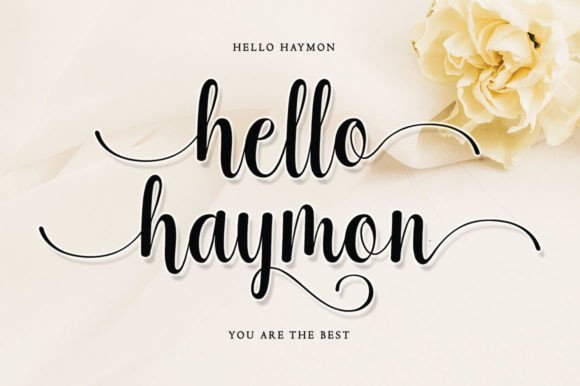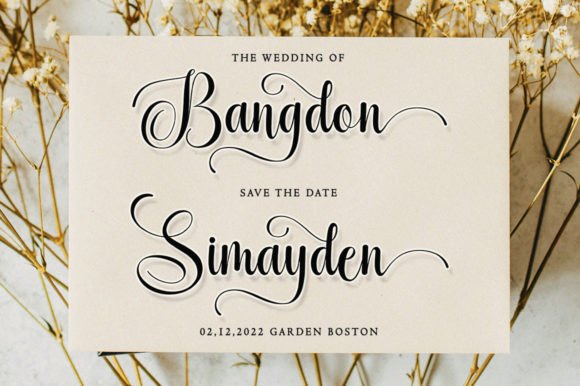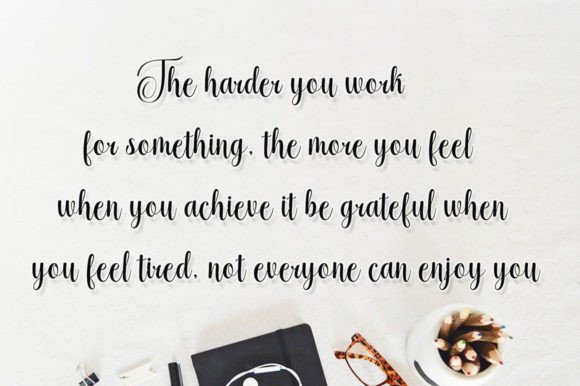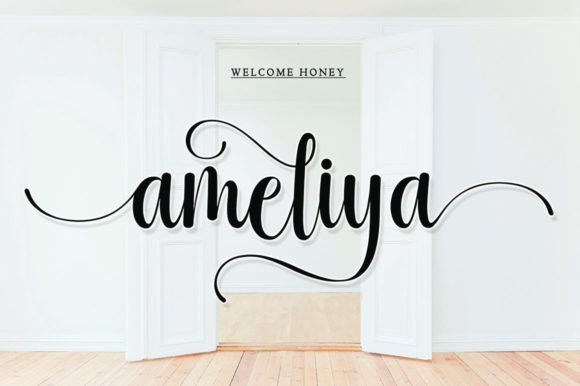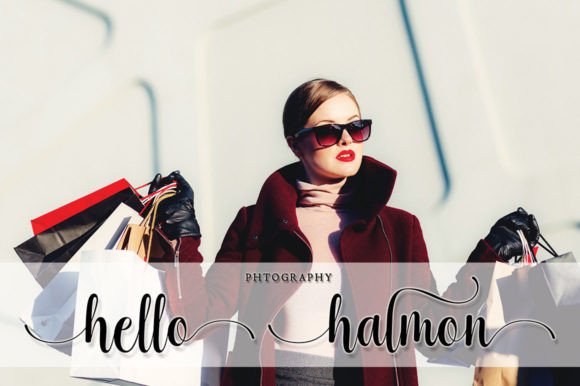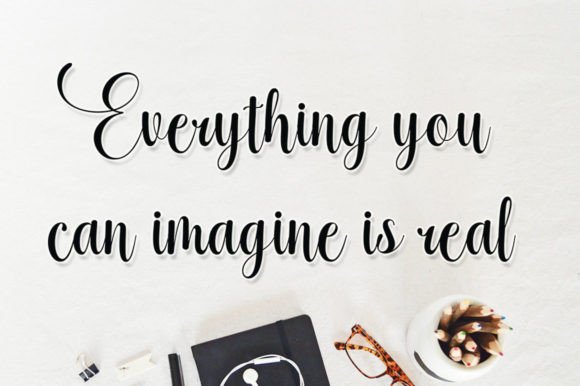
The Perfect Script for Your Heartfelt Designs
Remember that moment when you stumbled upon the perfect font for your project? You felt like you’d finally found the missing piece of a puzzle, and your design just came alive? That’s exactly what happens when you discover the Ameliyan Font. This sweet and romantic handwritten script font is a game-changer for designers looking to add a touch of elegance to their creations.
Ameliyan Font is designed to make a lasting impression, whether you’re crafting logos, labels, packaging designs, or social media posts. Its versatility makes it an essential tool for designers who want to convey a sense of romance, whimsy, or playfulness in their work. With Ameliyan Font, you can take your designs from ordinary to extraordinary, making it a valuable addition to any designer’s toolkit.
Key Features of Ameliyan Font
- Font Family: Ameliyan is a unique, modern script font designed for various applications, including digital and print media.
- Character Set: Supports a wide range of languages, including Latin, Cyrillic, and Greek alphabets, making it a versatile font for global use.
- Unique Characteristics: Features a distinctive, flowing design with intricate details, perfect for creating eye-catching headings, titles, and logos.
Ameliyan Font Review
Overall, I think Ameliyan is a decent font. Here are some things that work well for me:
- ✨ Elegant and refined aesthetic: Ameliyan has a unique, hand-drawn feel that’s perfect for projects where you want to add a touch of sophistication.
- ✨ Good legibility: The font is easy to read, even at smaller font sizes, which is great for body text or headings.
- ✨ Plenty of weights and styles: Ameliyan comes with a range of weights and styles, from light to bold, which gives you a lot of flexibility when designing with it.
That being said, there are some limitations to consider:
- ⚠️ Limited character set: Ameliyan only includes a basic character set, which may not be suitable for projects that require a lot of special characters or languages.
- ⚠️ Not ideal for headings: While Ameliyan looks great for body text, it’s not the best choice for headings or titles, as it can get lost in the design.
- ⚠️ May require tweaking: Depending on your design, you may need to adjust the font size, line height, or spacing to get the best results.
Overall, I think Ameliyan is a solid choice for projects where you want a clean, elegant font. Just be aware of its limitations and be prepared to do some tweaking to get the best results.
Tips for Getting the Most Out of the Ameliyan Font
For optimal results, use the Ameliyan font in conjunction with other elegant and modern design elements.
Experiment with different font sizes and colors to create visual interest and hierarchy in your design.
The Ameliyan font is ideal for:
Business branding and marketing materials
Editorial and publishing projects
Alternatives to Ameliyan Font for Designers
The Ameliyan Font is a unique and elegant script font. However, it may not be suitable for every design project. Here are a few alternatives that designers can consider.
The Pacifico Font is a beautiful, modern script font that is perfect for creating a relaxed and casual atmosphere. It is ideal for use in branding, advertising, and packaging design. In comparison to Ameliyan Font, Pacifico has a more laid-back feel and is more suitable for everyday use.
The Great Vibes Font is a stylish and elegant script font that is perfect for creating a sophisticated and luxurious atmosphere. It is ideal for use in high-end branding, wedding invitations, and special occasion design. Compared to Ameliyan Font, Great Vibes has a more refined and luxurious feel.